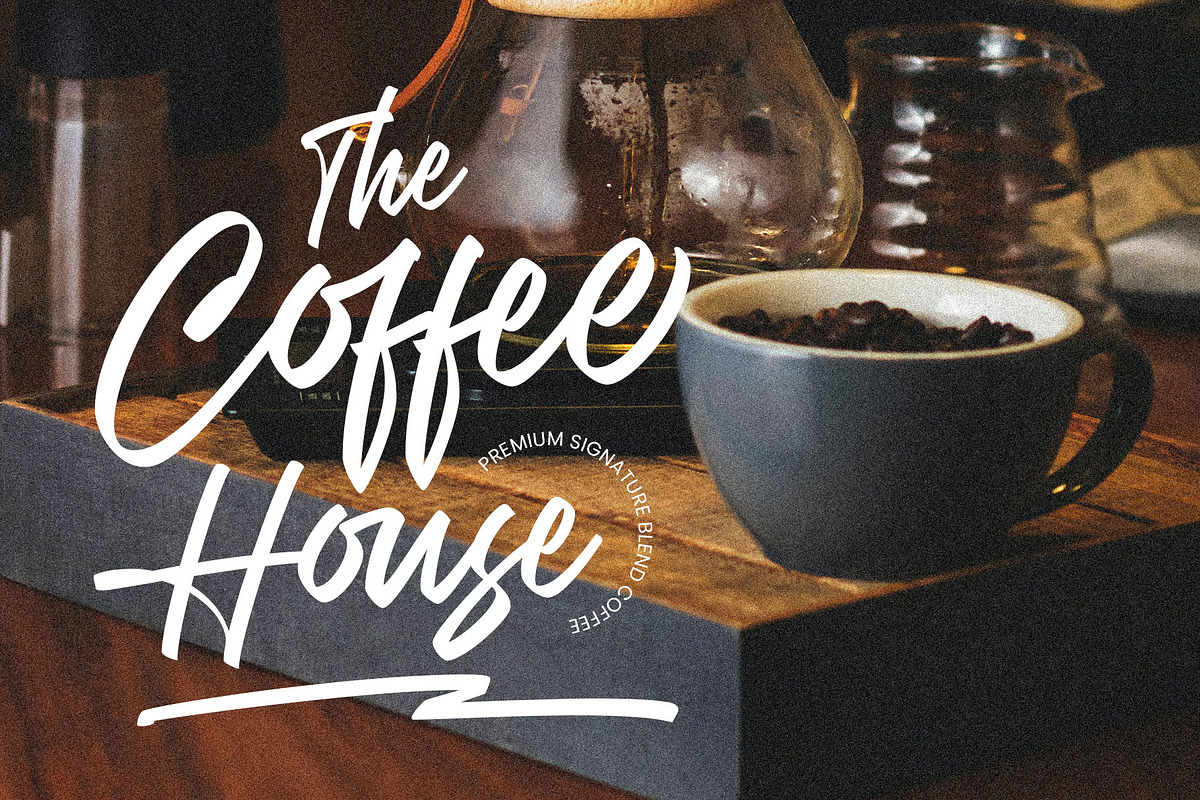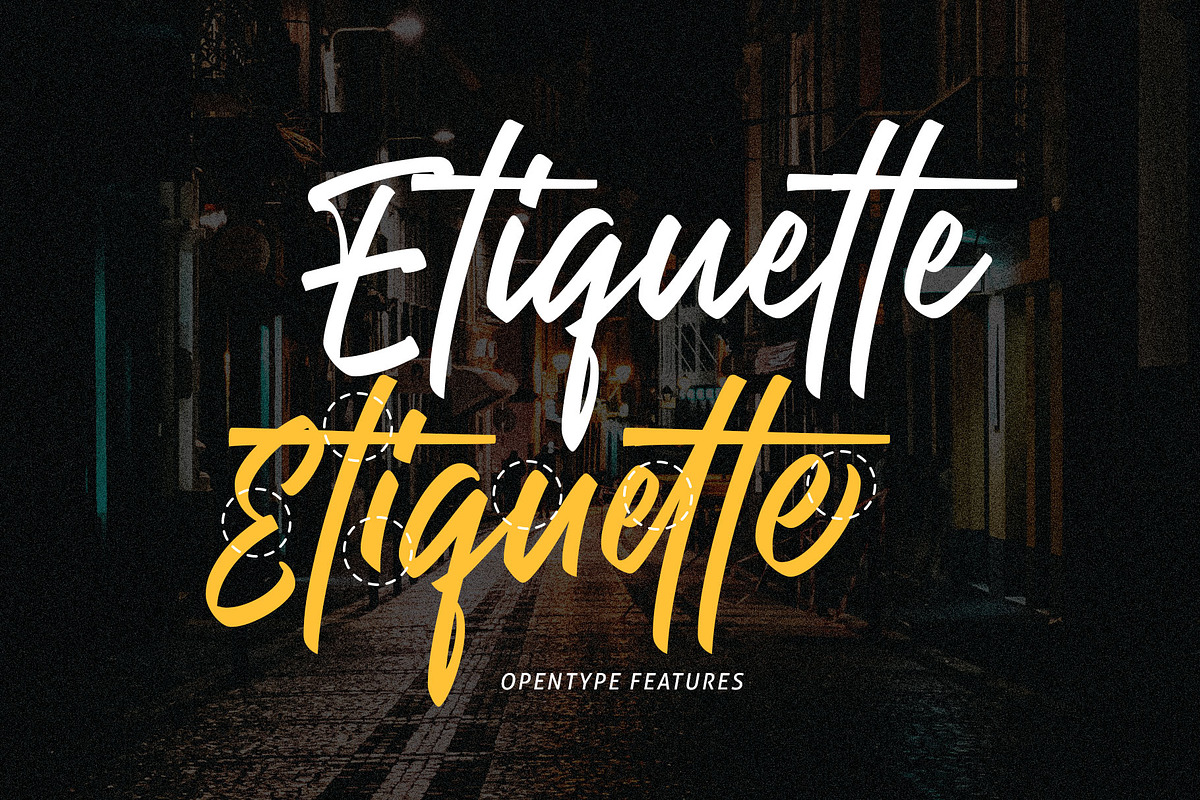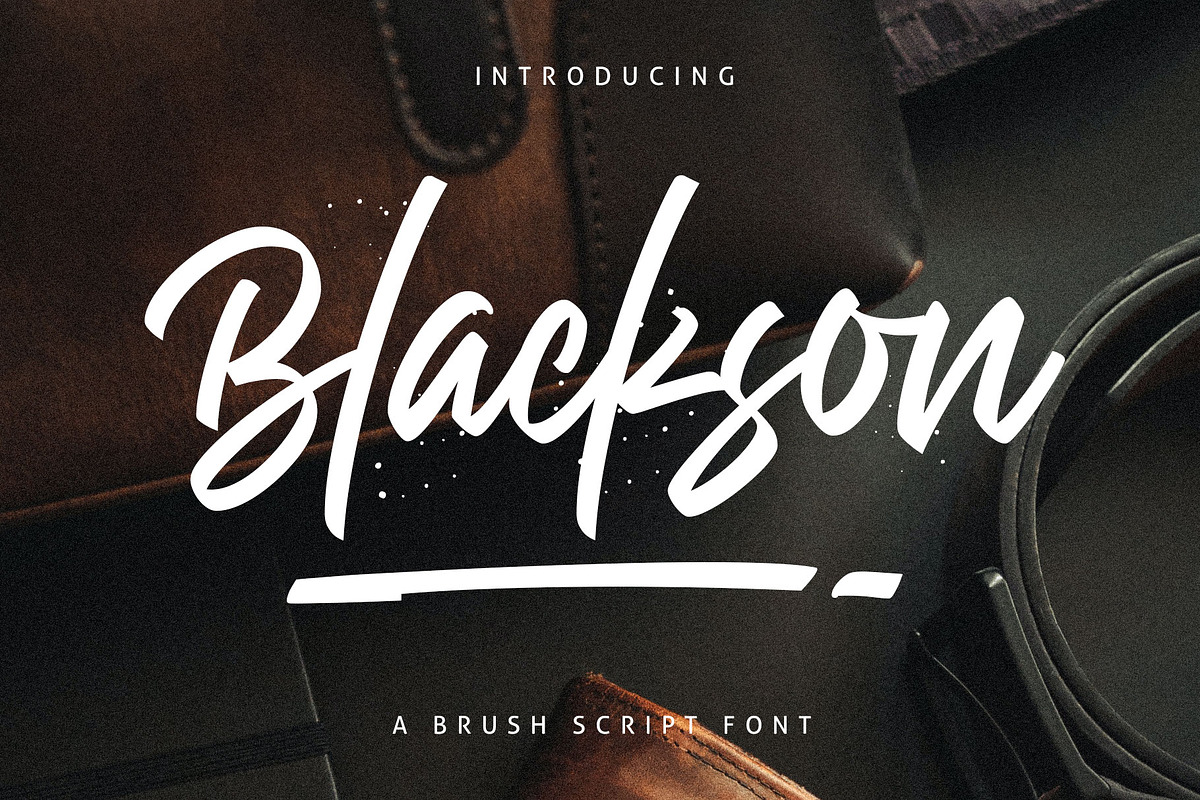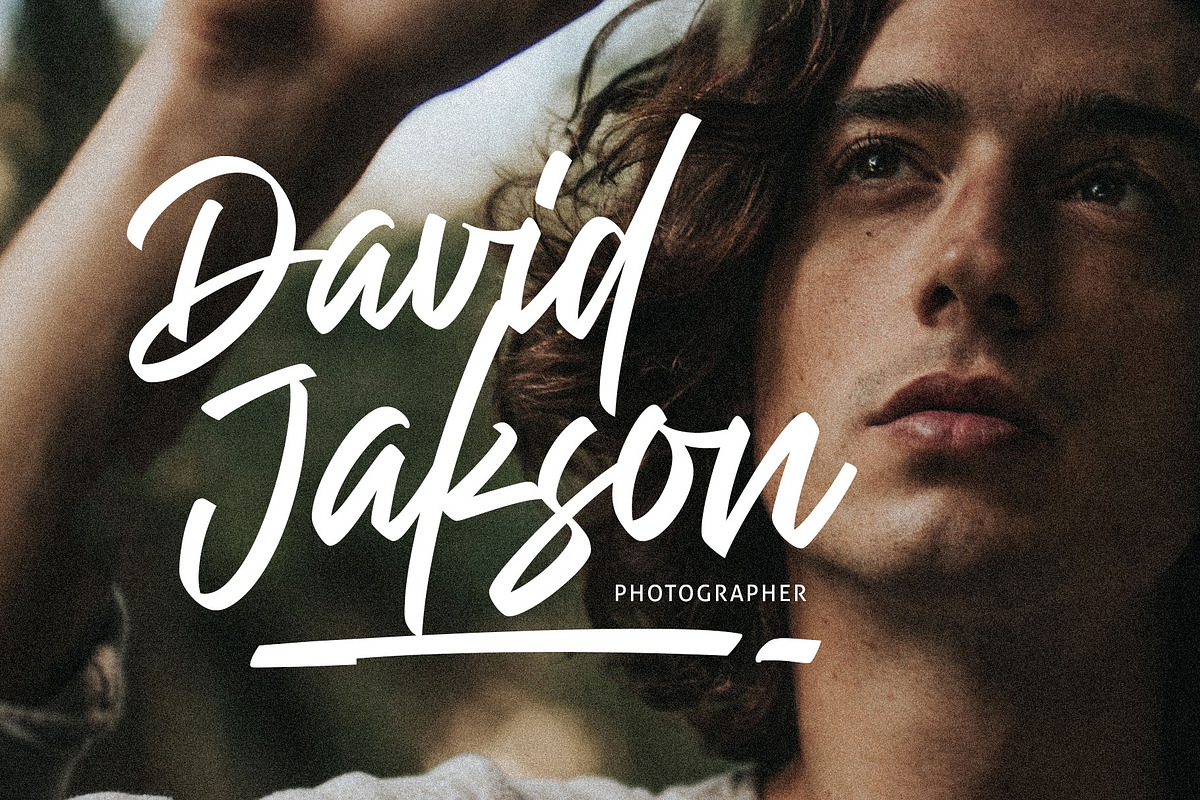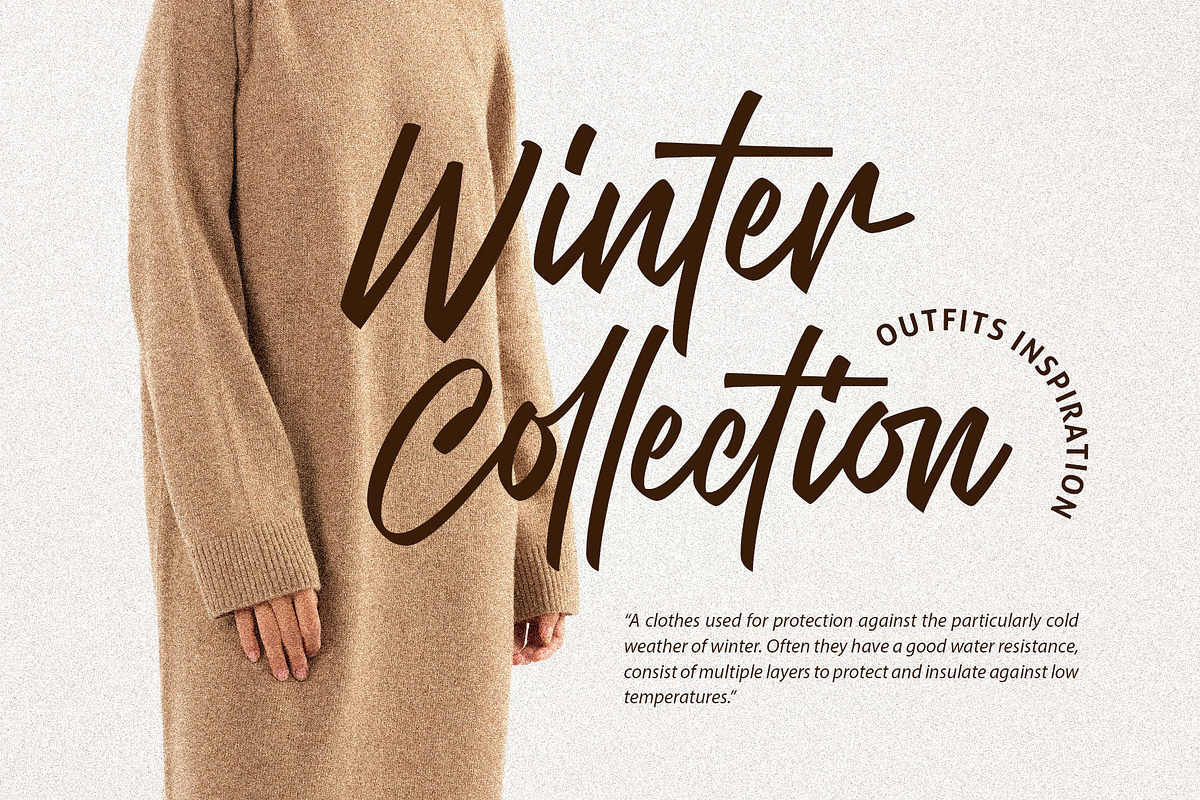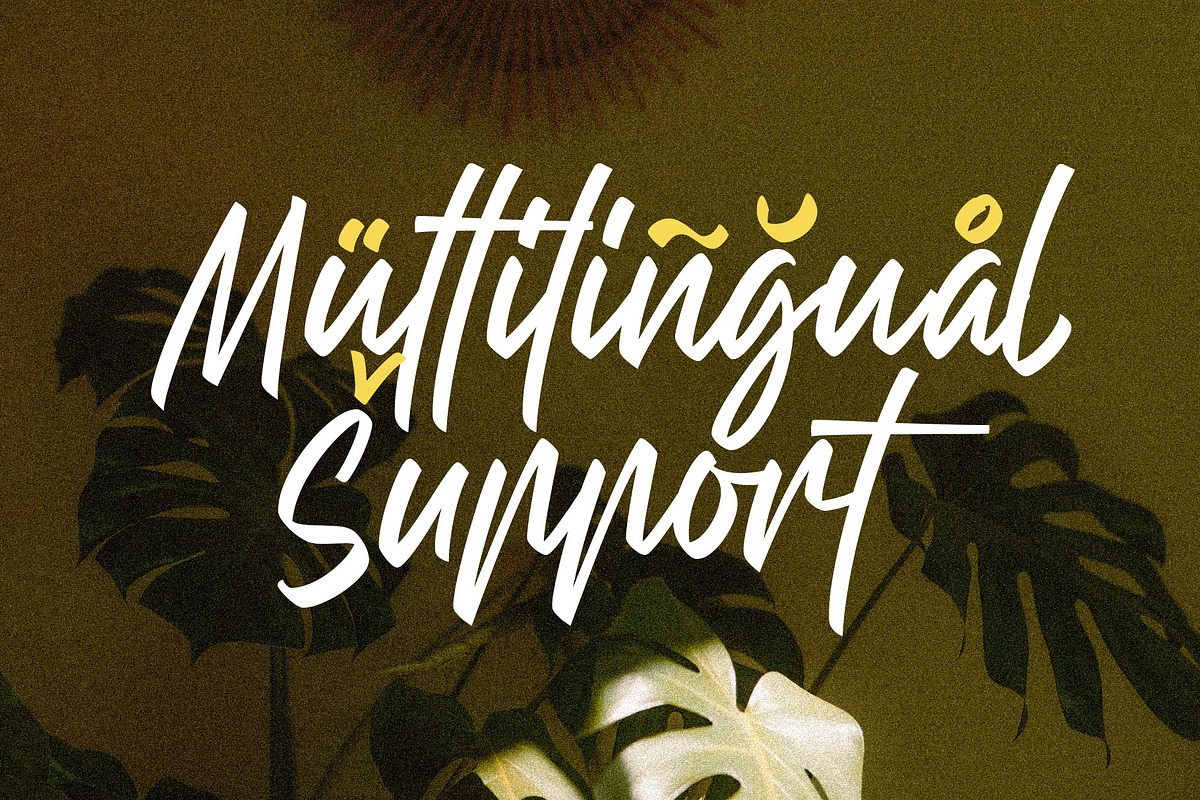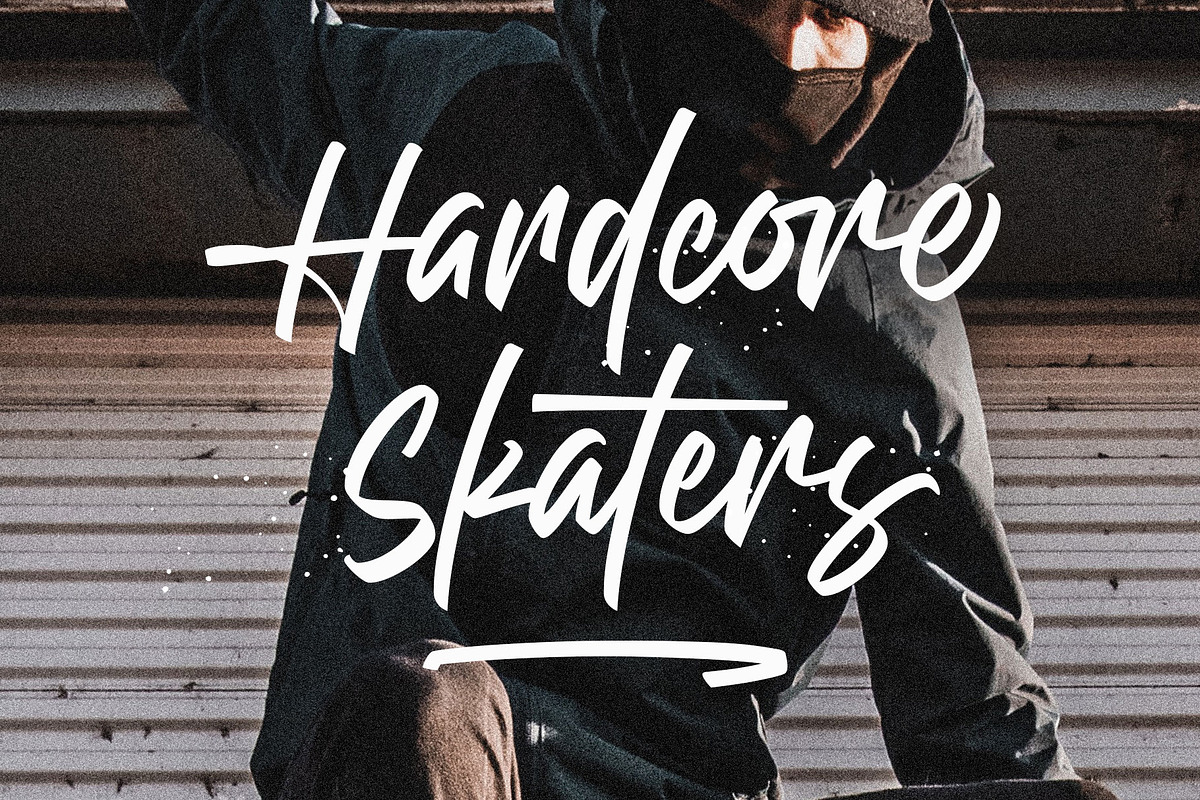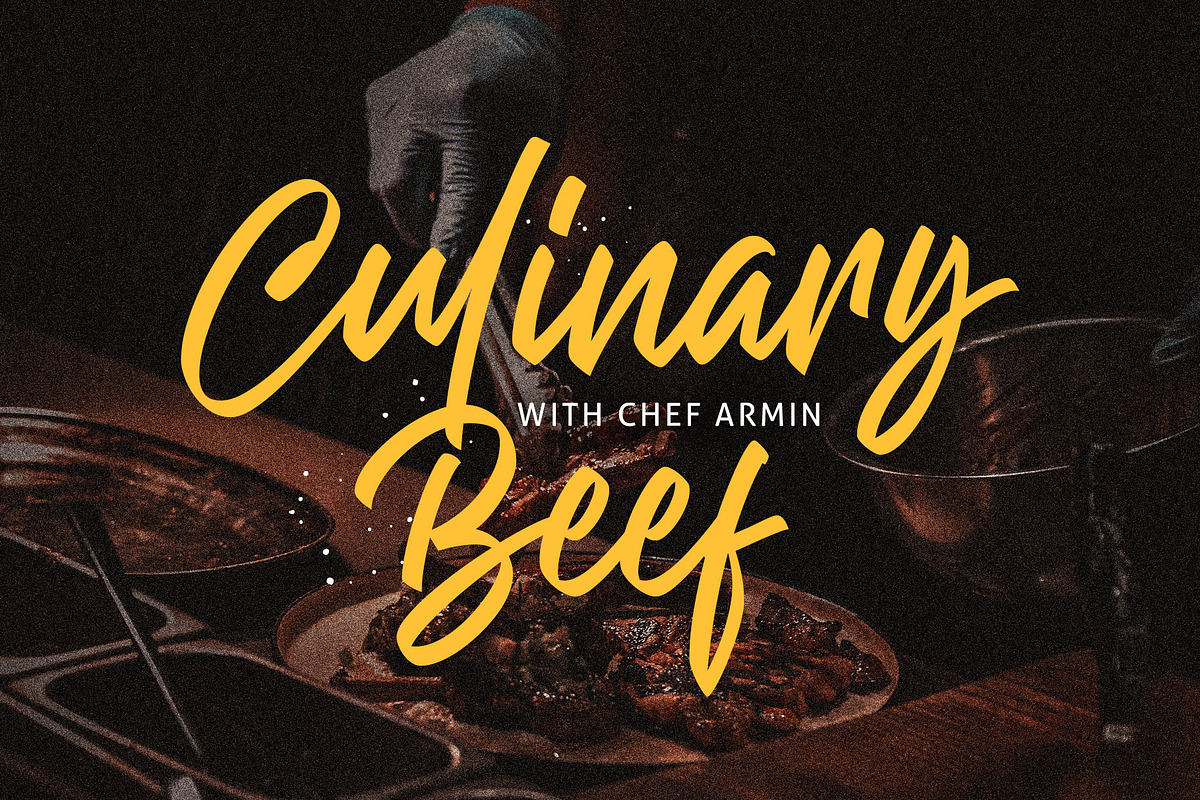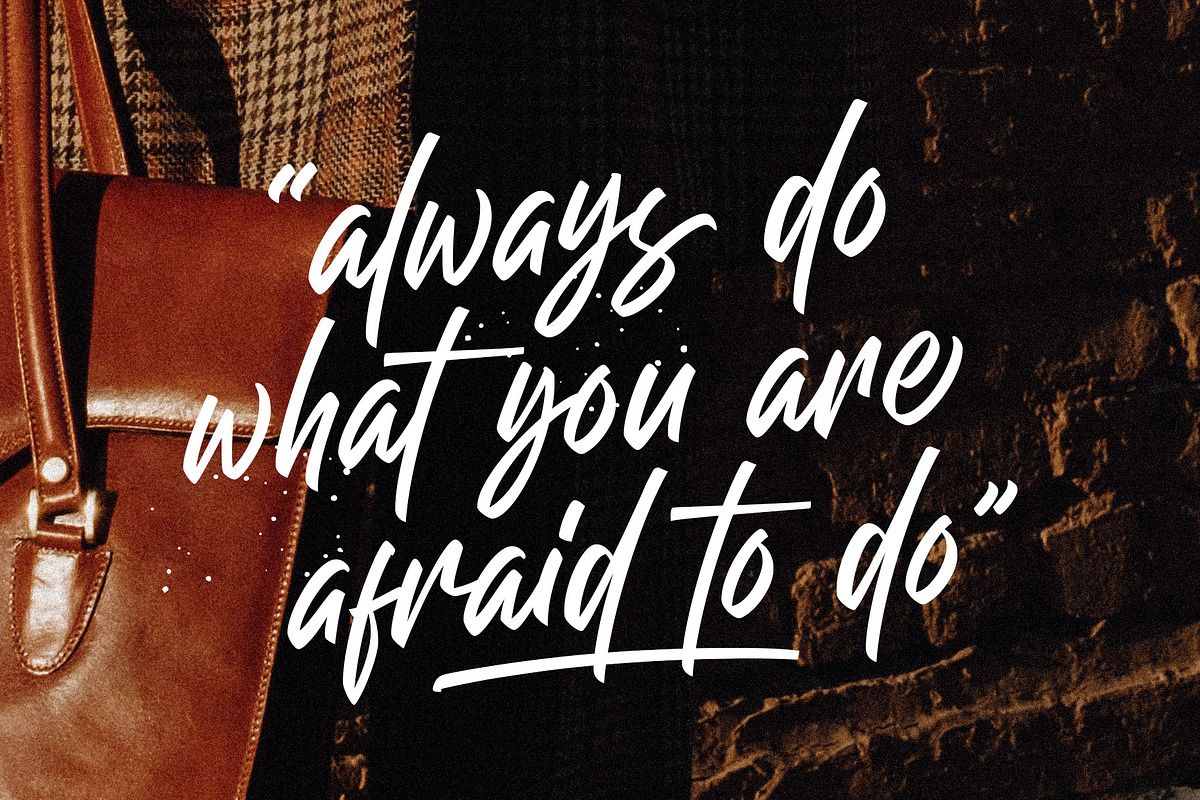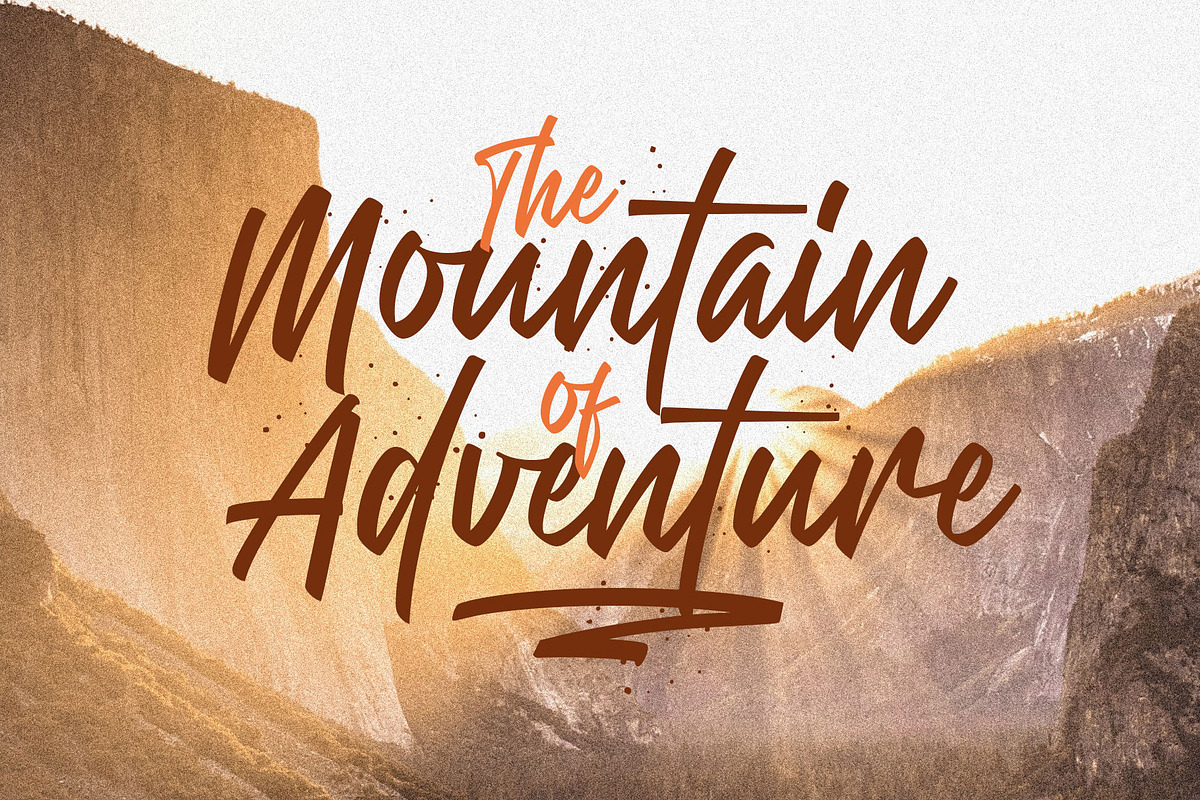
Blackson - Urban Style
Blackson is an elegant, urban-style brush handwriting font. It's specifically designed to maximize your design projects that require a dynamic and personal touch. This font offers a unique sense of satisfaction, energetic, and confidence, making it perfect for use in logos, branding, signage, posters, packaging, flyers, merchandise, movies, motion graphics, and more.
Blackson also comes with custom ligatures, special characters, and multilingual support to make your designs stand out even more.